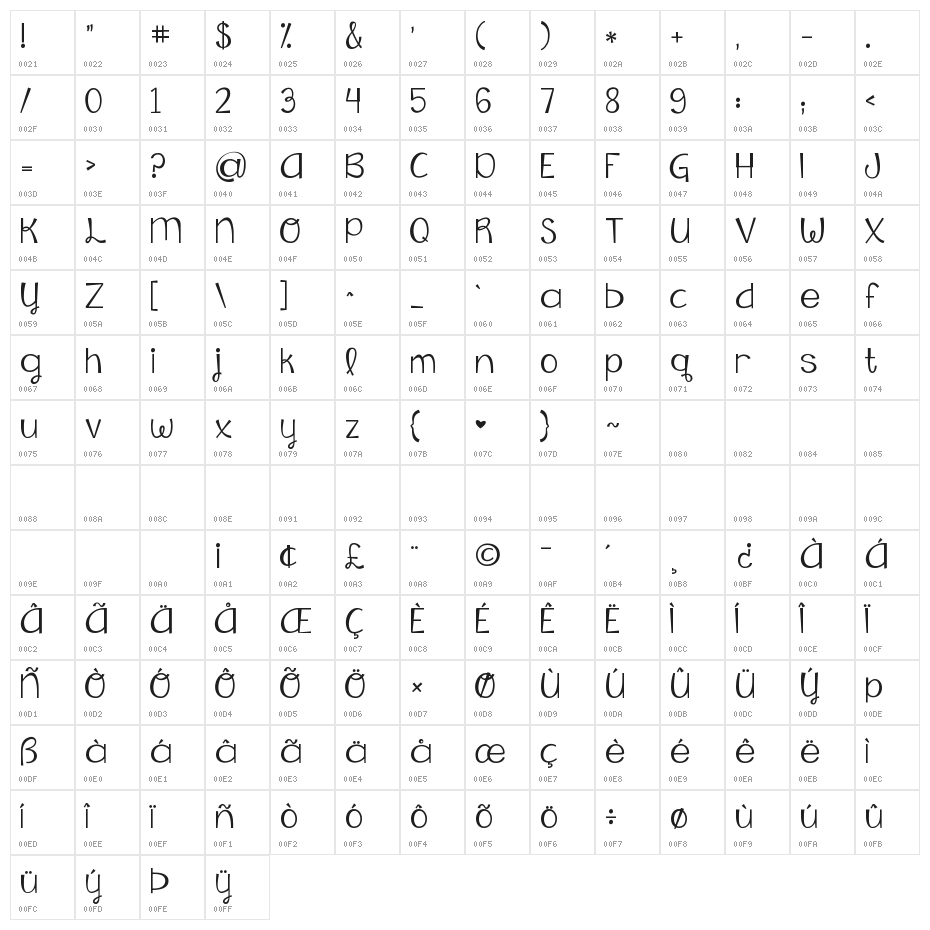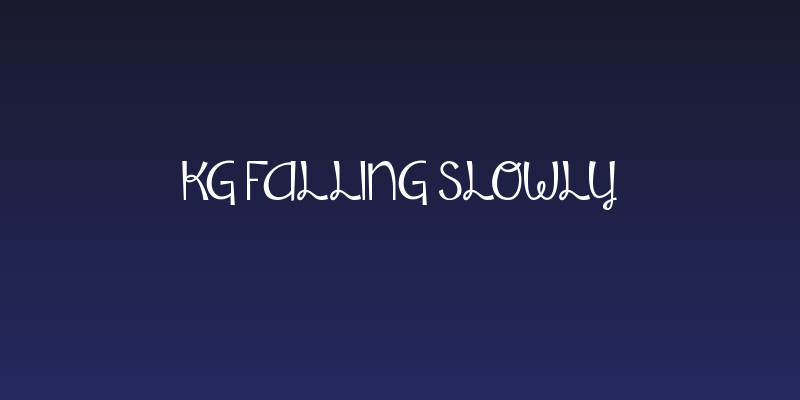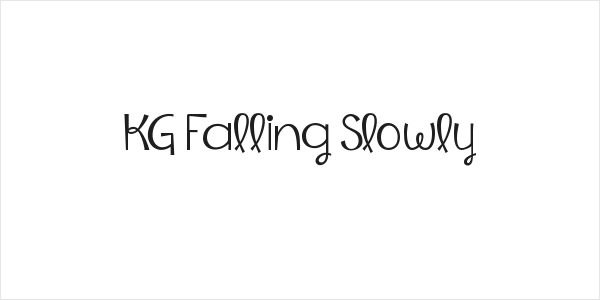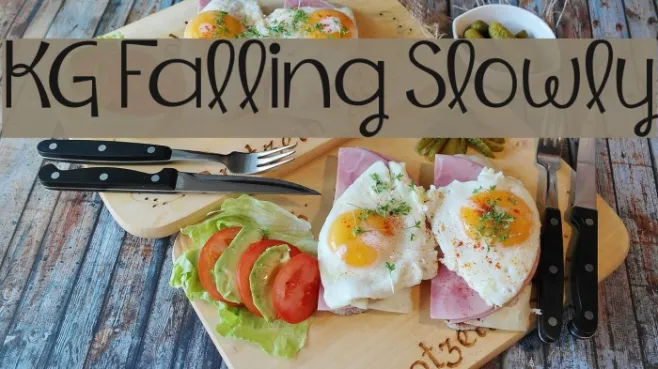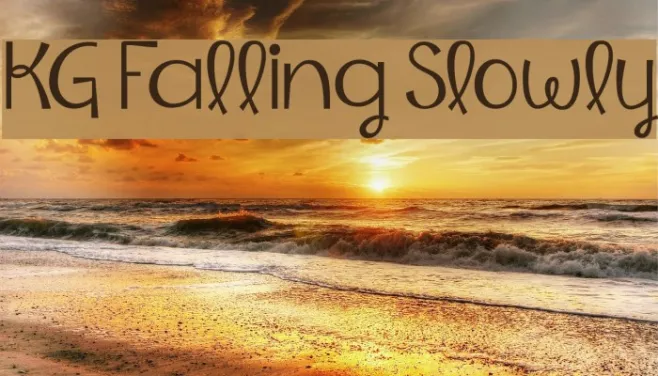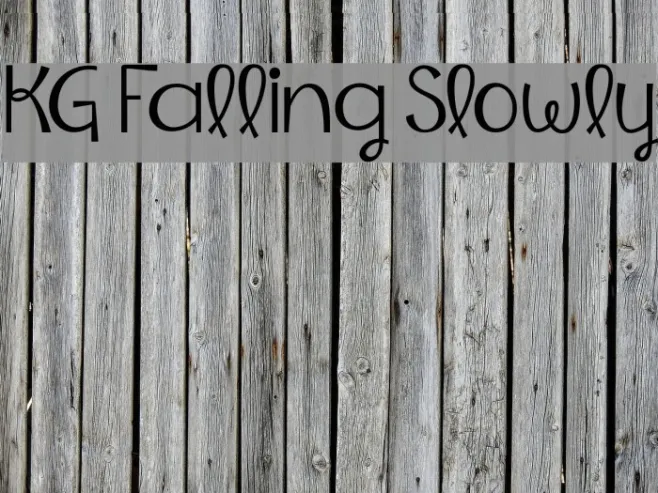
KG Falling Slowly Font
KG Falling Slowly Description
This font features a whimsical and playful design, characterized by its unique blend of curves and straight lines. The uppercase letters exhibit a distinct style with elongated verticals and rounded terminals, giving them a friendly and approachable appearance. The lowercase letters maintain this playful aesthetic, with some characters like 'g' and 'y' having charming loops and swirls. The numerals are consistent with the overall style, offering a harmonious look across all characters. Special characters are creatively designed, adding to the font's decorative appeal. This font is perfect for projects that require a touch of fun and creativity.
| Proposed Projects | Ideal for children's books, playful branding, greeting cards, and creative posters. |